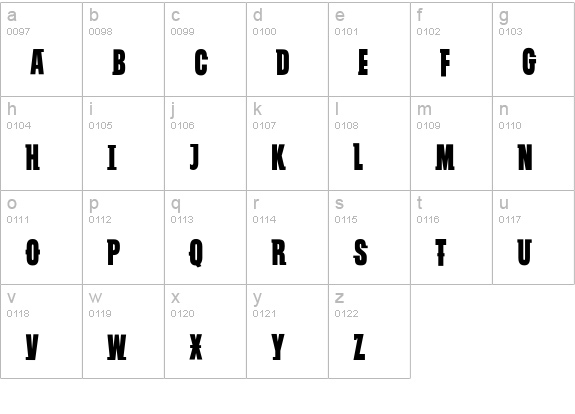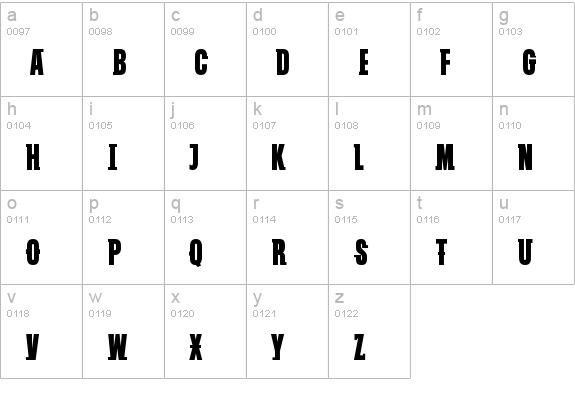
VTC SubwaySlamSC Regular Font Details
VTC SubwaySlamSC Regular is the standard, neutral variant in the VTC typeface family \xE2\x80\x94 well suited to general body text, paragraphs, and standard typographic work.
VTC SubwaySlamSC Regular font is a captivating and bold typeface that exudes an urban and contemporary vibe. Its strong, straight lines and angular corners make it perfect for creating impactful designs and eye-catching headlines. With its unique and edgy personality, VTC SubwaySlamSC Regular font is sure to make a statement in any project. Whether you're designing a poster for a music festival, creating a streetwear brand logo, or crafting a modern website, this font will add a touch of urban flair. One of the best features of VTC SubwaySlamSC Regular font is that it is freely available to download at FontsMarket.com. This means that you can easily access and use this font without any hassle or cost. It's a fantastic opportunity to enhance your designs with a high-quality, professionally designed font without breaking the bank. The versatility of VTC SubwaySlamSC Regular font is truly remarkable. It comes in a range of weights and styles, allowing you to experiment and create various typographic compositions. Whether you prefer a bold and impactful look or a more subtle and refined approach, this font has got you covered. Additionally, VTC SubwaySlamSC Regular font is exceptionally legible, making it suitable for both print and digital applications. Its clean and well-defined letterforms ensure that your message will be communicated effectively, no matter the size or medium. So why wait? Enhance your design projects with the captivating and versatile VTC SubwaySlamSC Regular font today. Download it for free at FontsMarket.com and let your creativity soar to new heights.